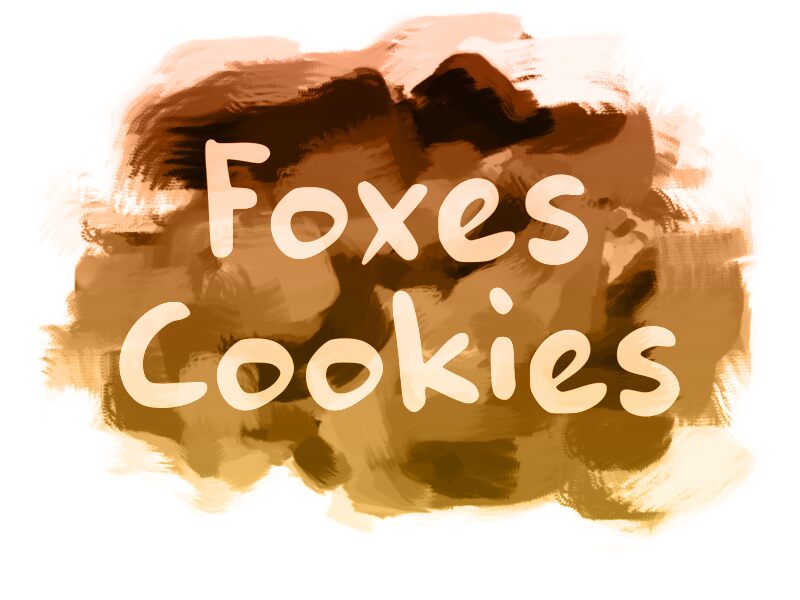
Foxes Cookies
Foxes Cookies is a playful and charming display font by wep. This semi-bold typeface with its semi-expanded width is perfect for a variety of projects.
Its comic style adds a touch of whimsy to children's books, greeting cards, and packaging designs. Use it to create eye-catching headlines, inviting posters, or vibrant social media graphics that will capture attention. Foxes Cookies will bring a delightful and fun element to any design project, making it the ideal choice for anyone looking to add a touch of personality and creativity.